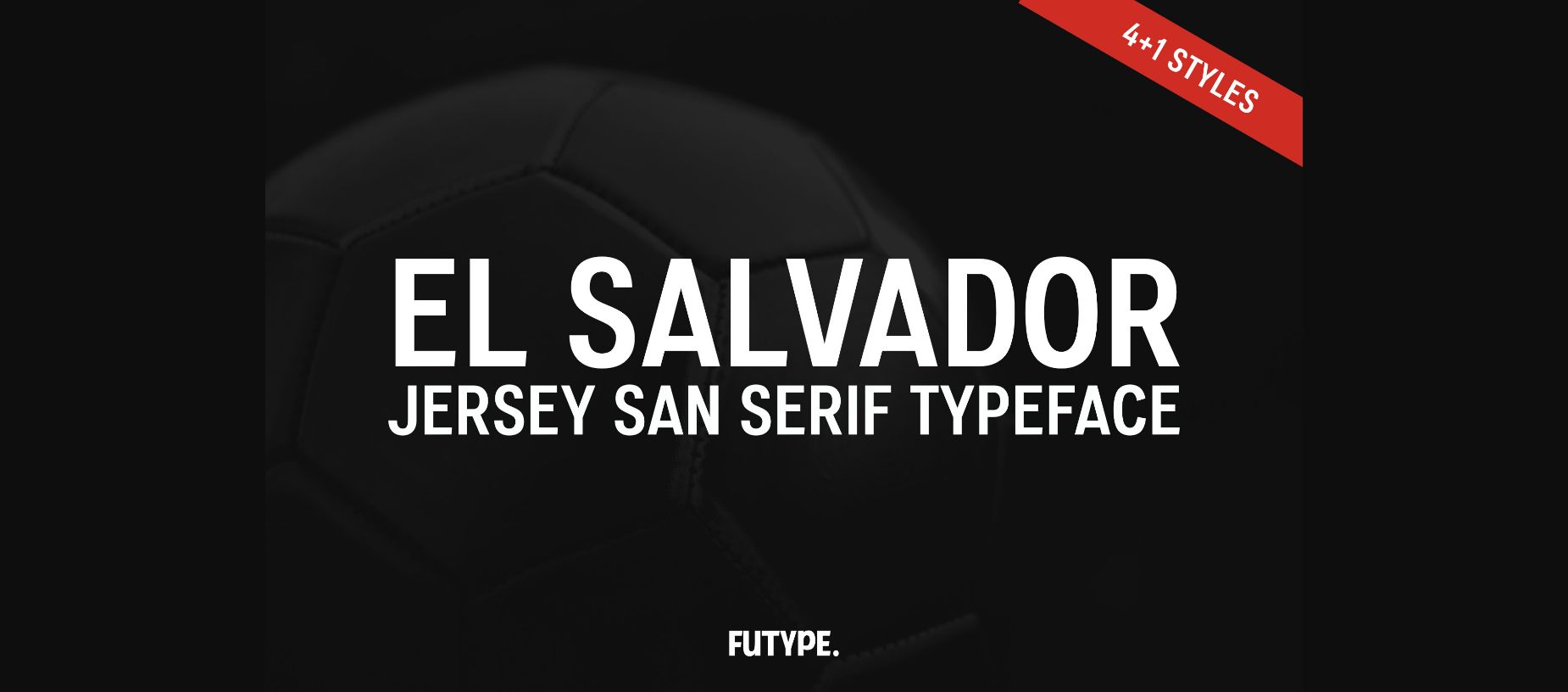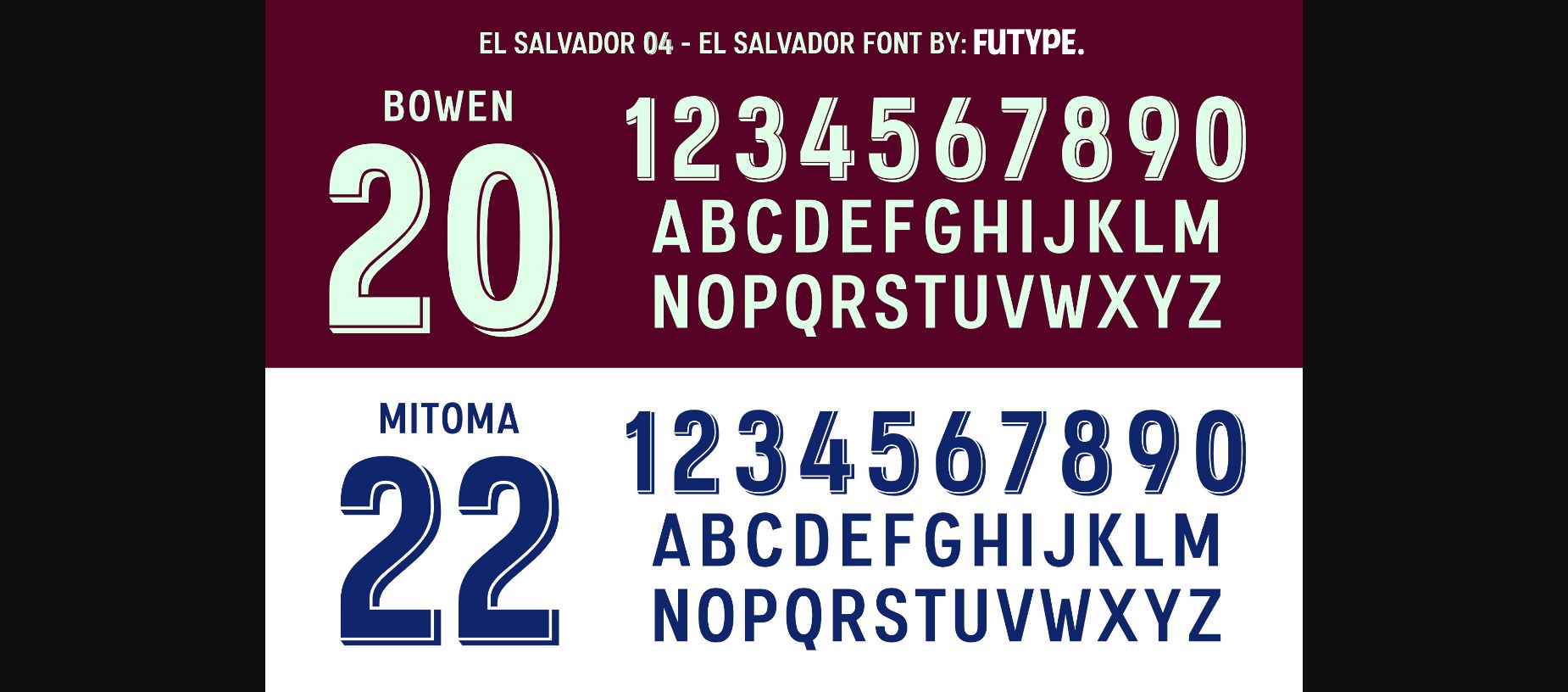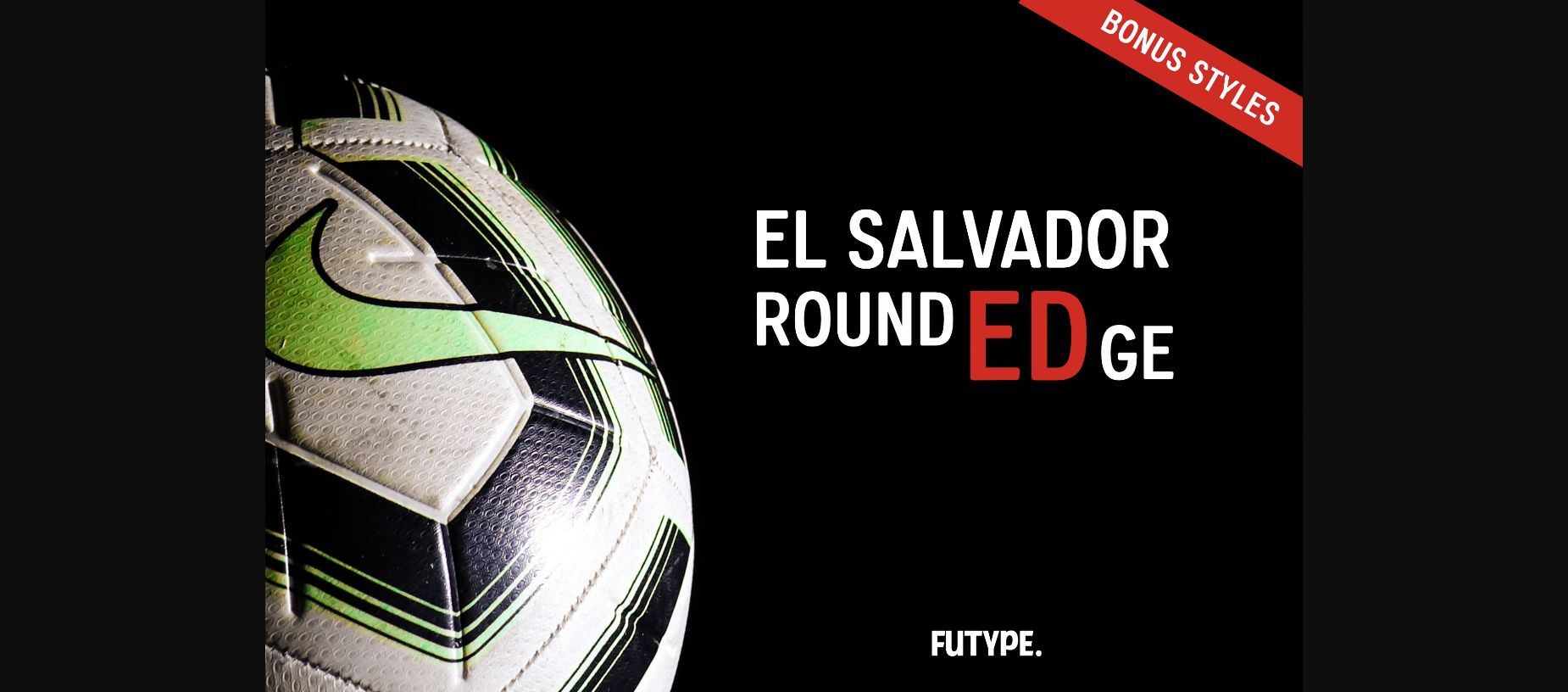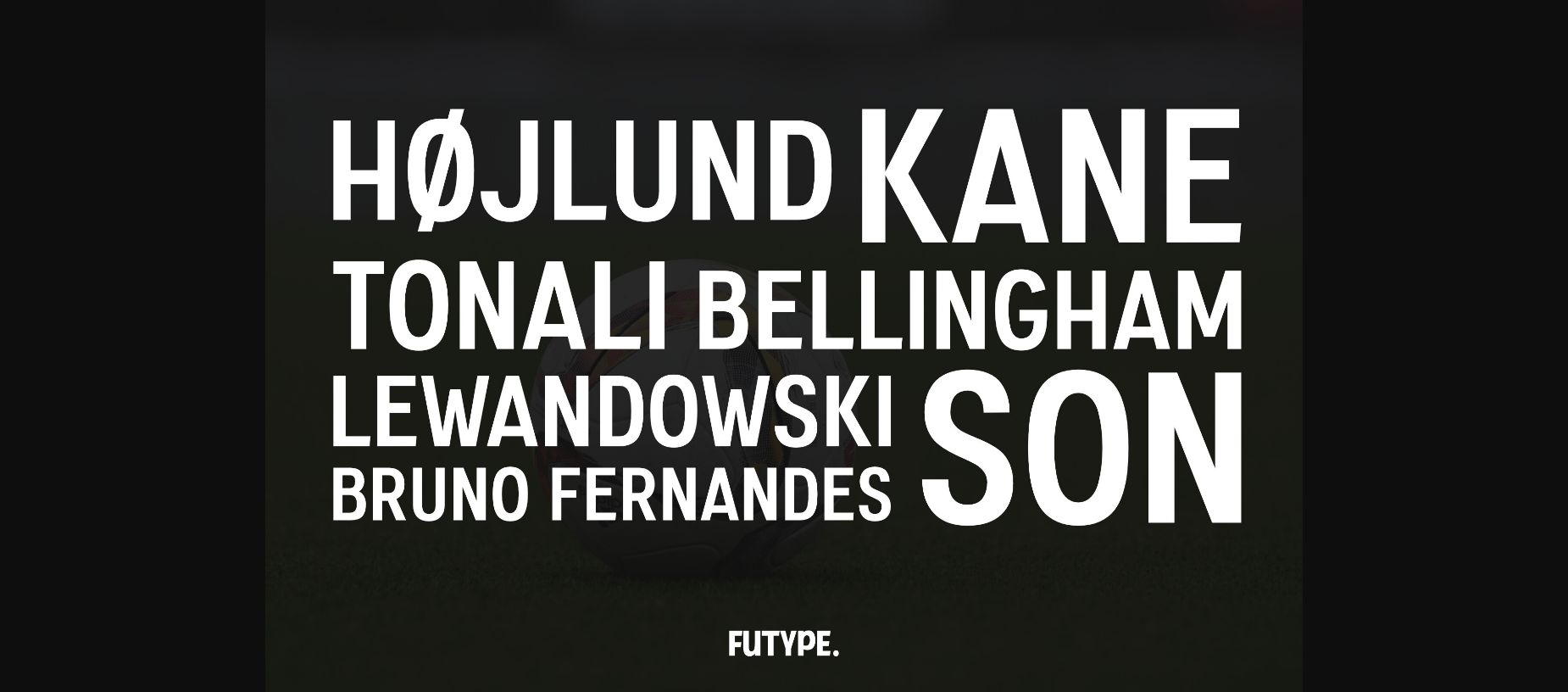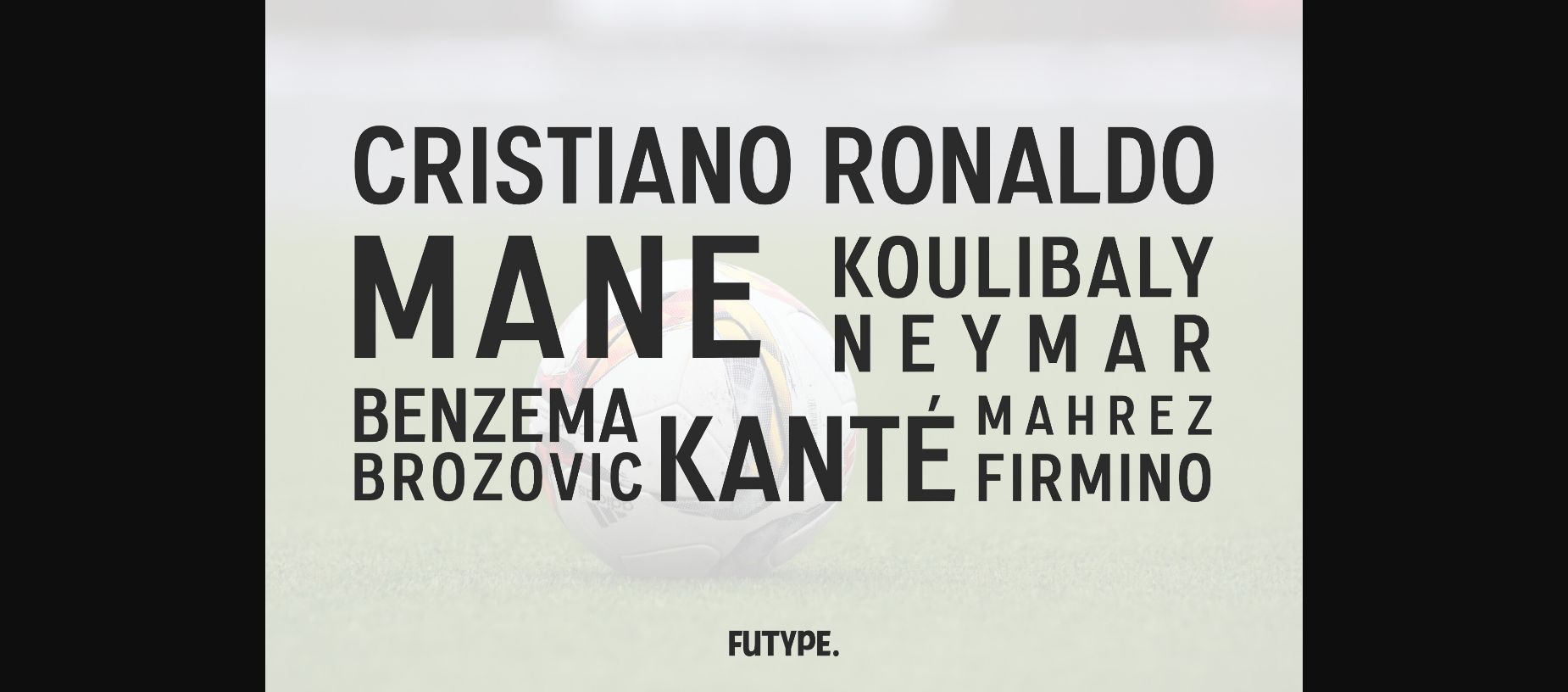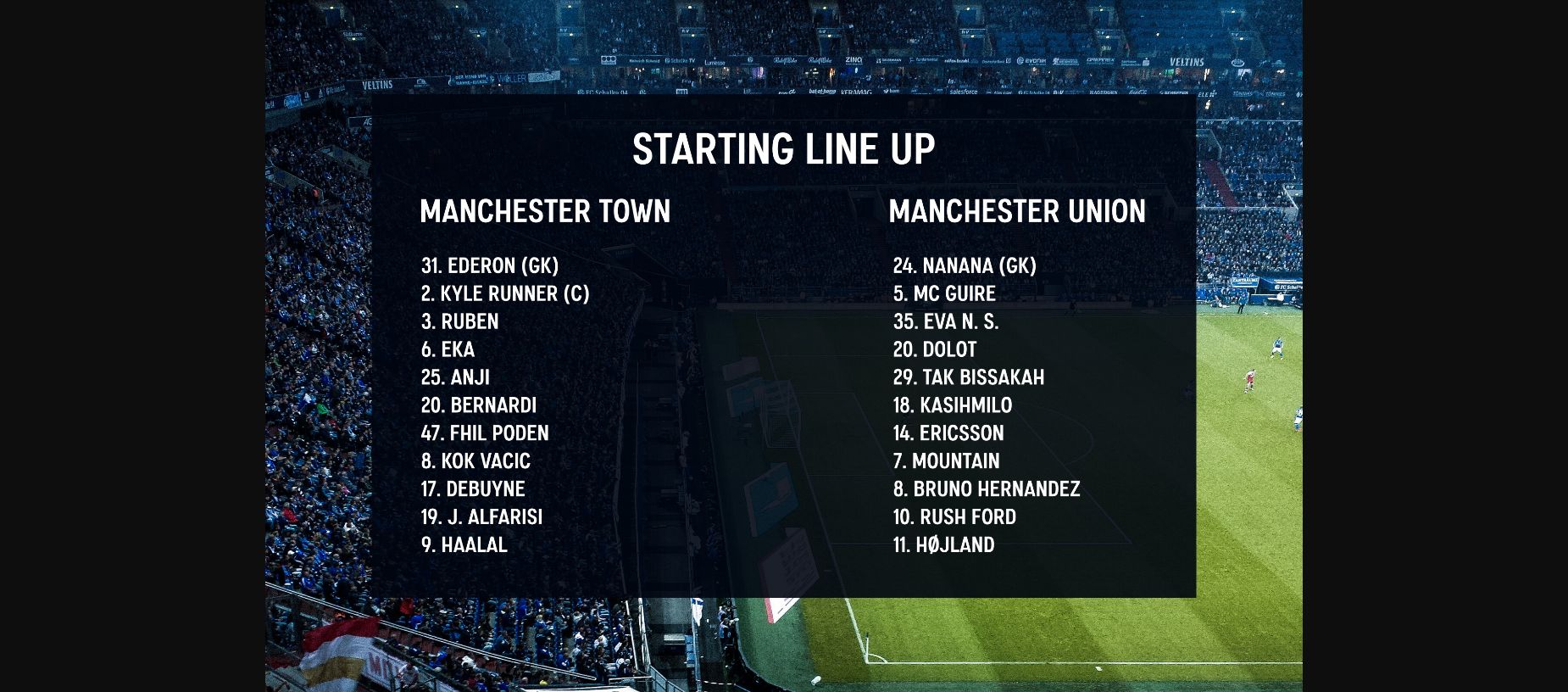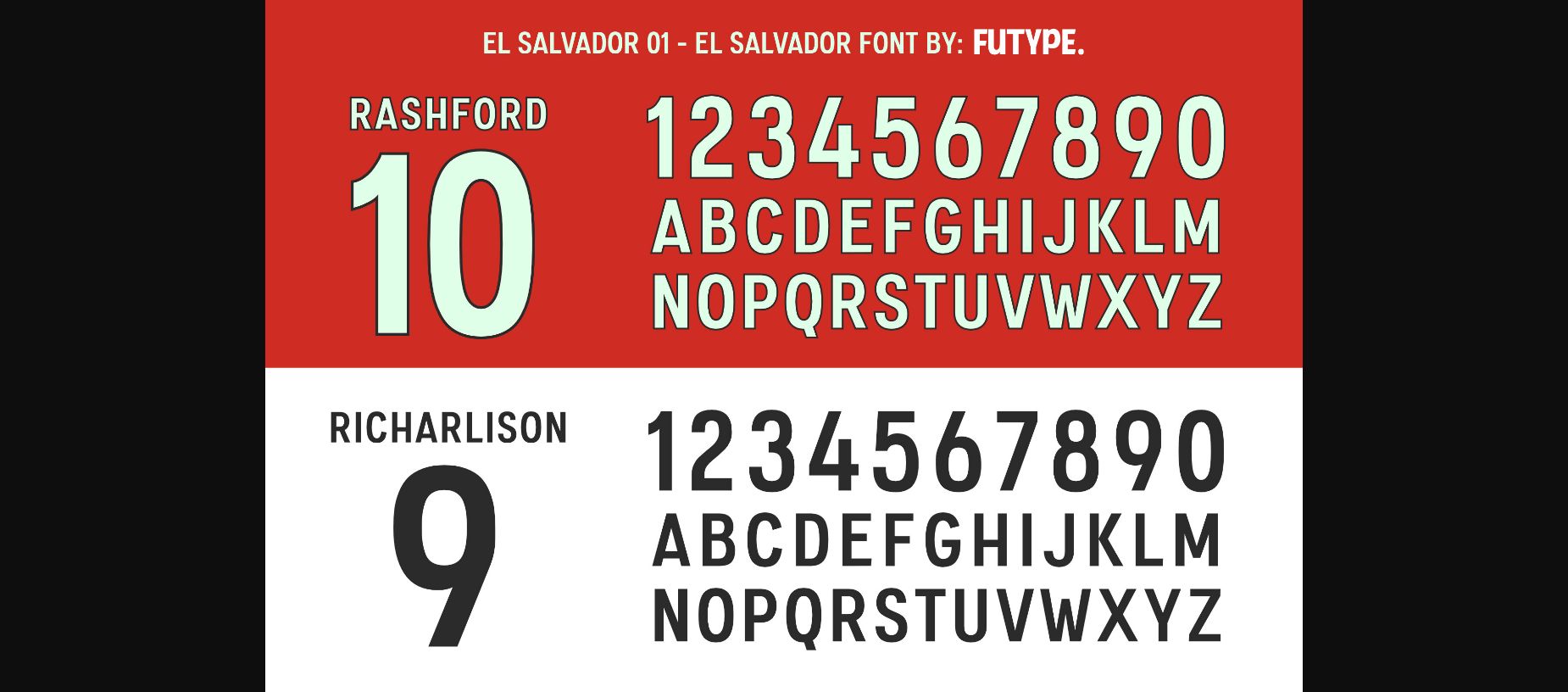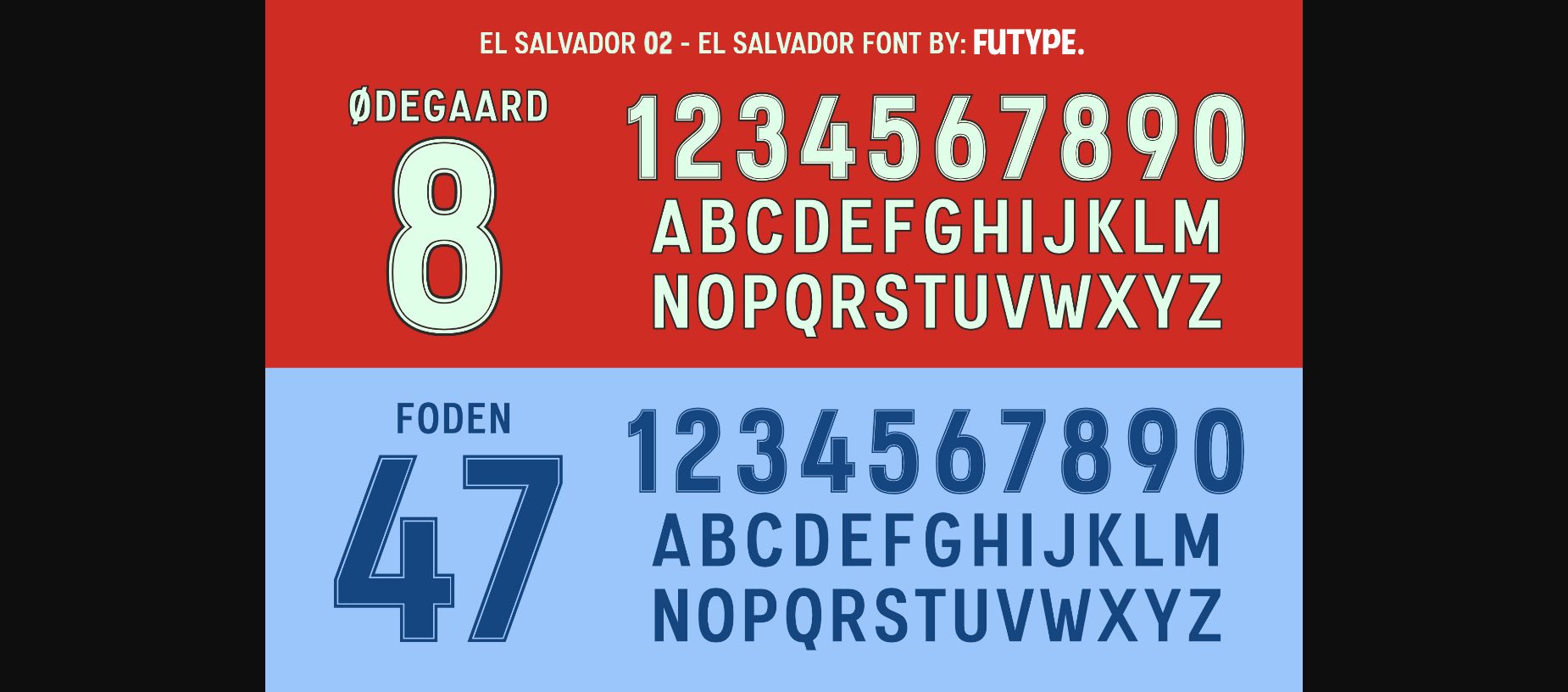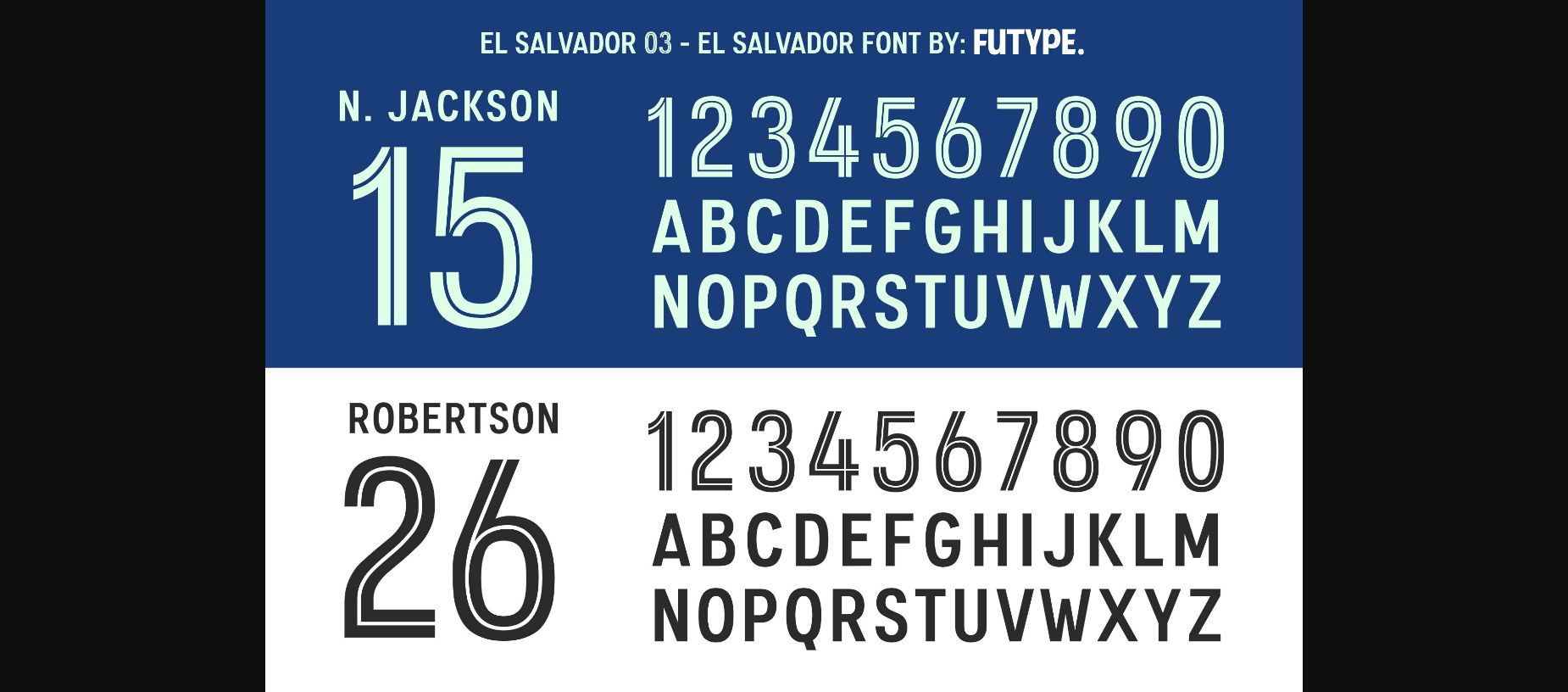
El Salvador is a typeface made for football/soccer or other sports jerseys/kits.
Even though is made for sports, with the San serif style as a base El Salvador is also good for other purposes.